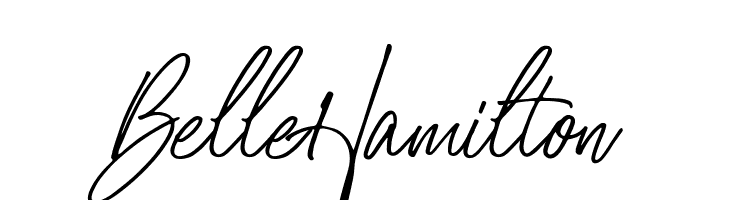
A dynamic, cursive script font with fluid, connected letters and varying stroke thickness.
A playful and elegant handwritten font with dynamic cursive letters.